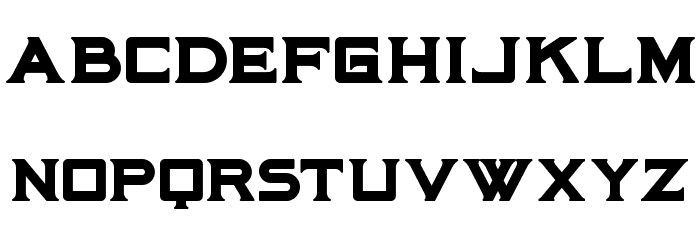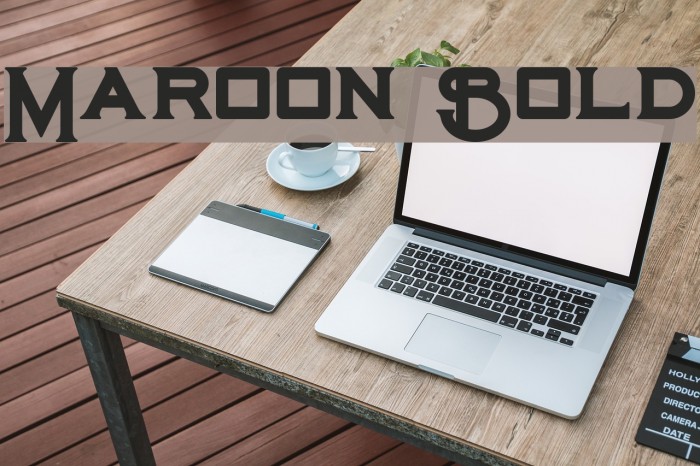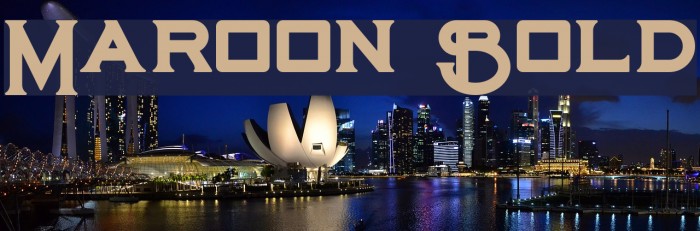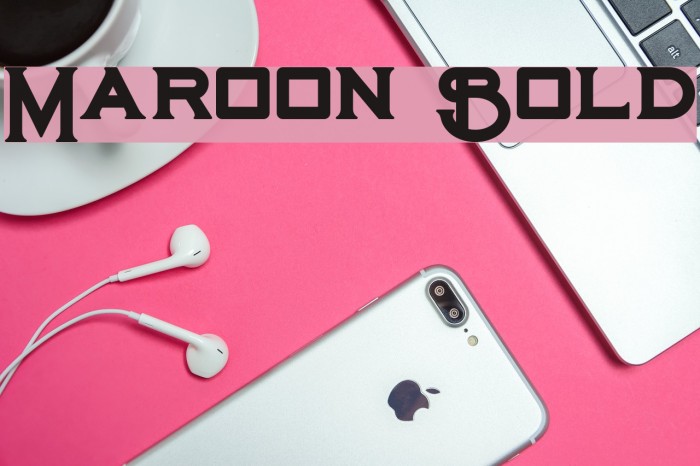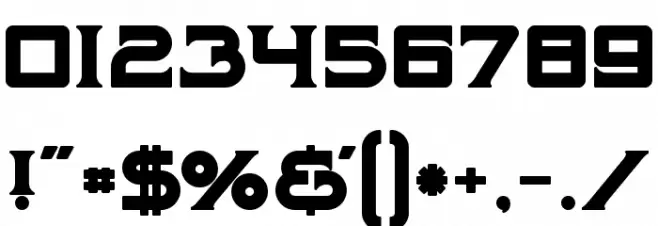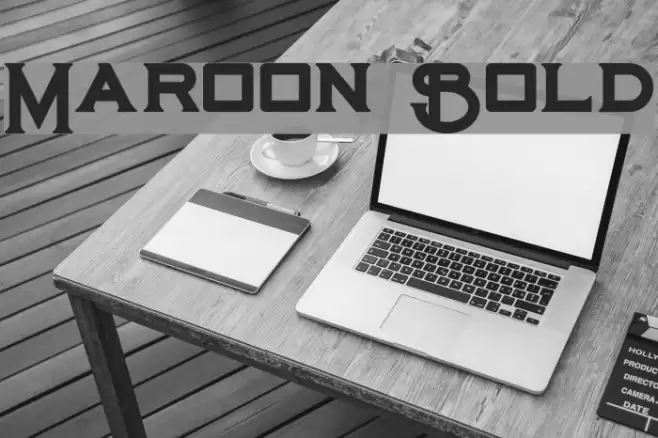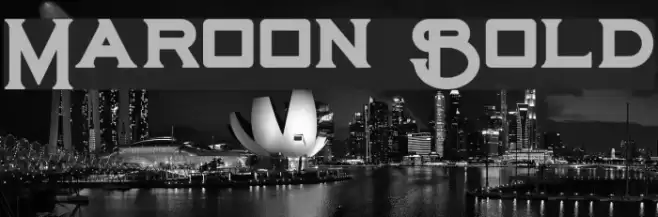
Maroon Bold Font
This font features a bold and striking design with a strong presence. The characters are crafted with a unique blend of geometric shapes and sharp edges, giving it a modern yet slightly vintage feel. The uppercase letters are particularly distinctive, with angular serifs and a robust structure that commands attention. The numerals and special characters maintain this bold aesthetic, ensuring consistency across all glyphs. The font's overall design is both decorative and functional, making it suitable for a variety of creative applications.
A bold, geometric font with sharp edges and a modern vintage feel.
- Proposed Projects: Ideal for branding, posters, headlines, and any project requiring a strong visual impact.
- Overall Style: Modern Vintage